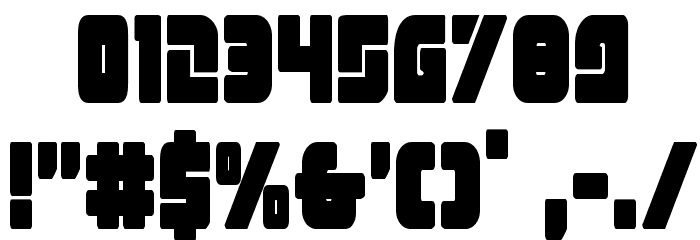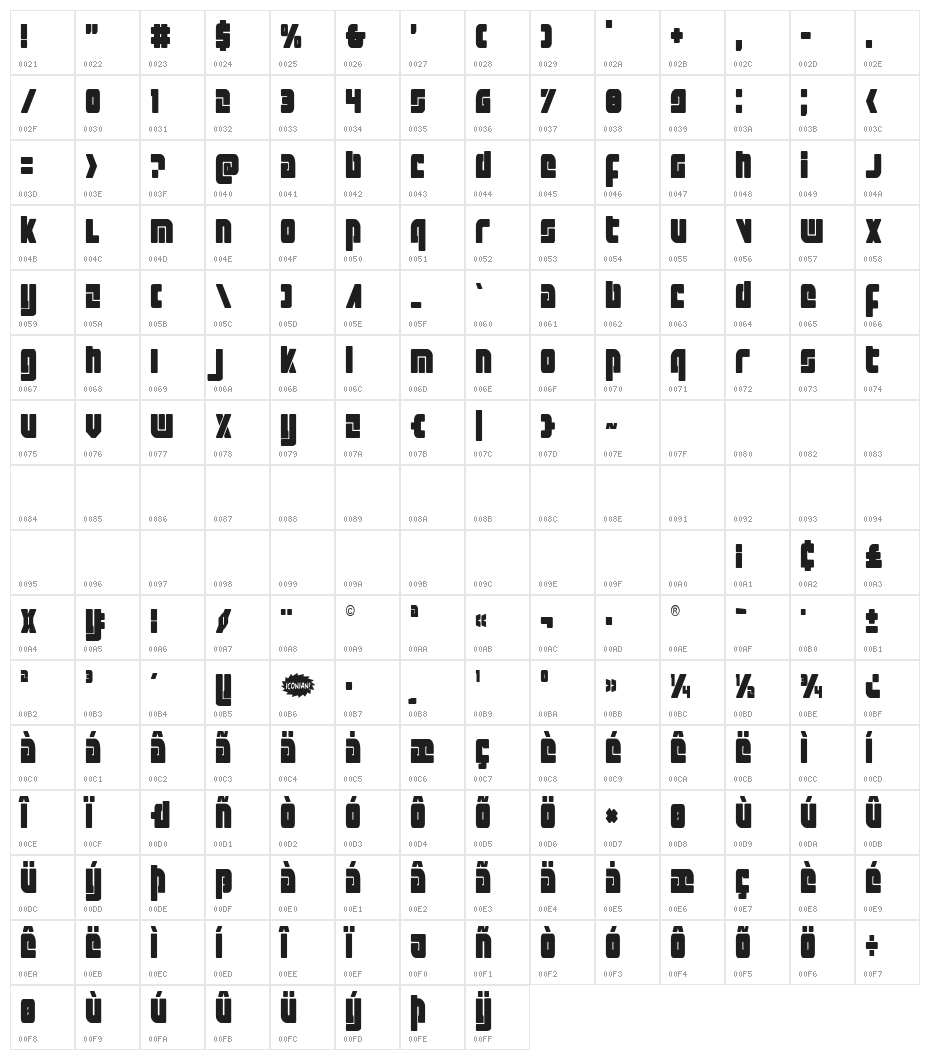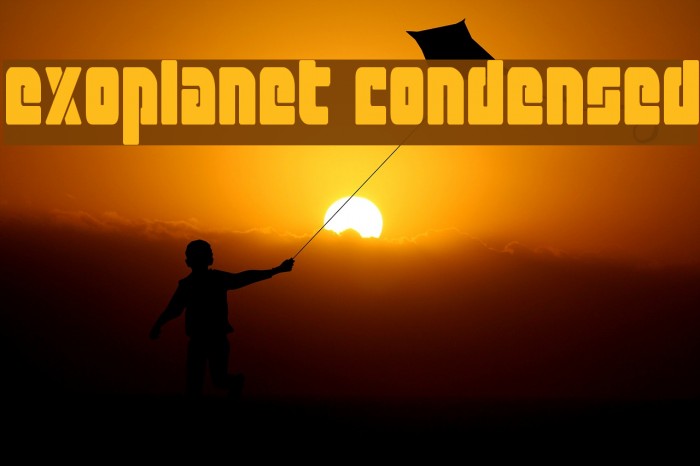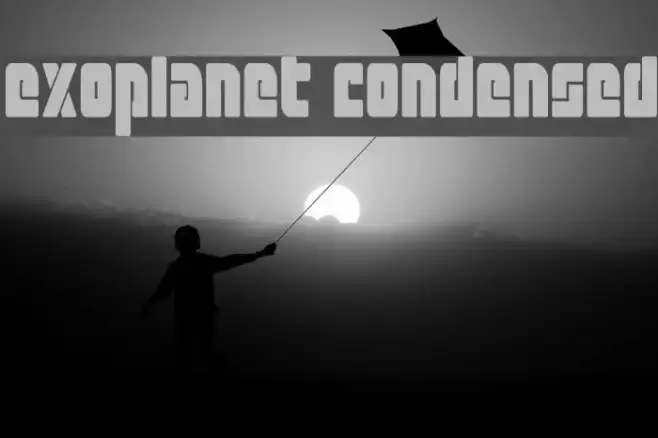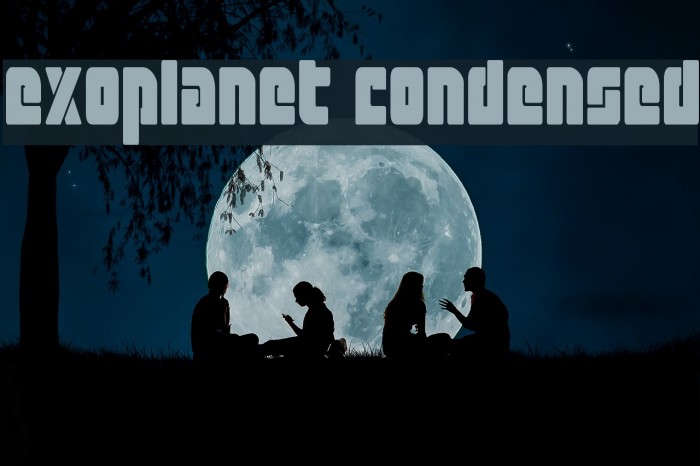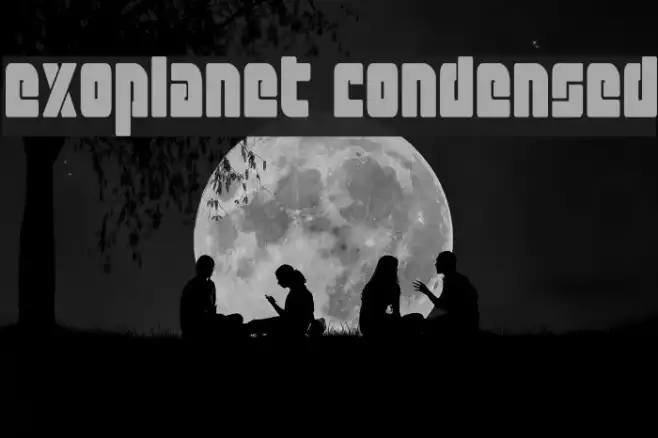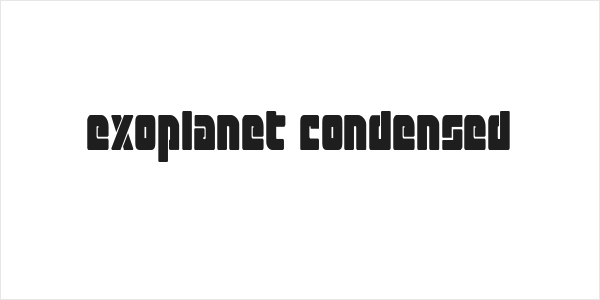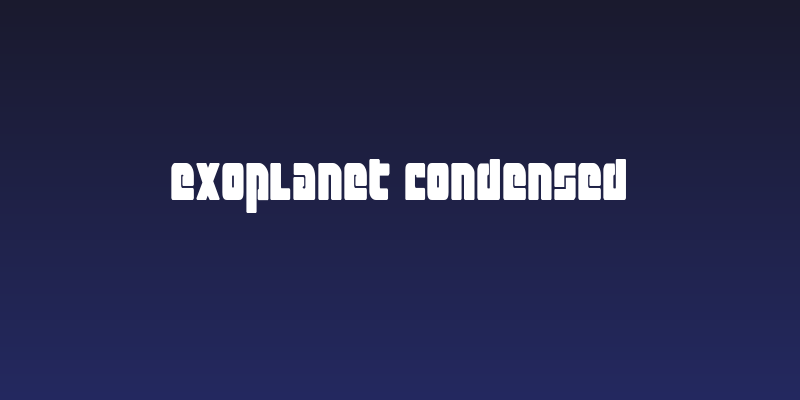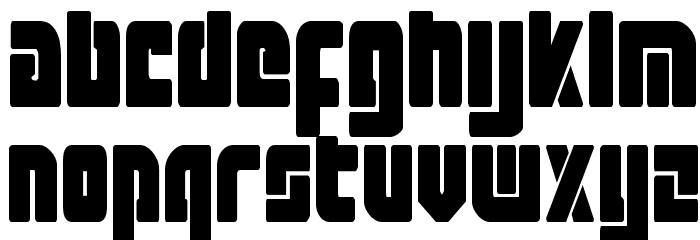
Exoplanet Condensed Font
Exoplanet Condensed Description
This font features a bold, geometric design with a futuristic feel. The characters are constructed with thick, block-like shapes, creating a strong visual impact. The condensed width of the letters allows for efficient use of space, making it suitable for headlines and titles. The uniform stroke thickness across all characters gives it a cohesive and modern appearance. The font includes both uppercase and lowercase letters, numerals, and a variety of special characters, maintaining a consistent style throughout.